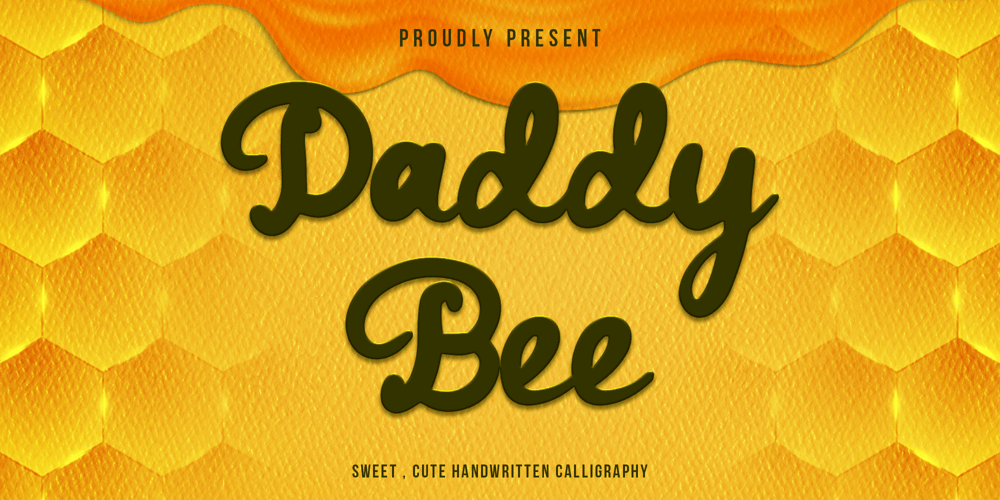
Daddy Bee
Daddy Bee font
Daddy Bee Font Family was designed by Yahhya Anas Atok Illah and published by WNGSTD. Daddy Bee contains 1 styles and family package options. Daddy Bee is a bold and cute handwritten font. It is the perfect font for making original and outstanding designs!